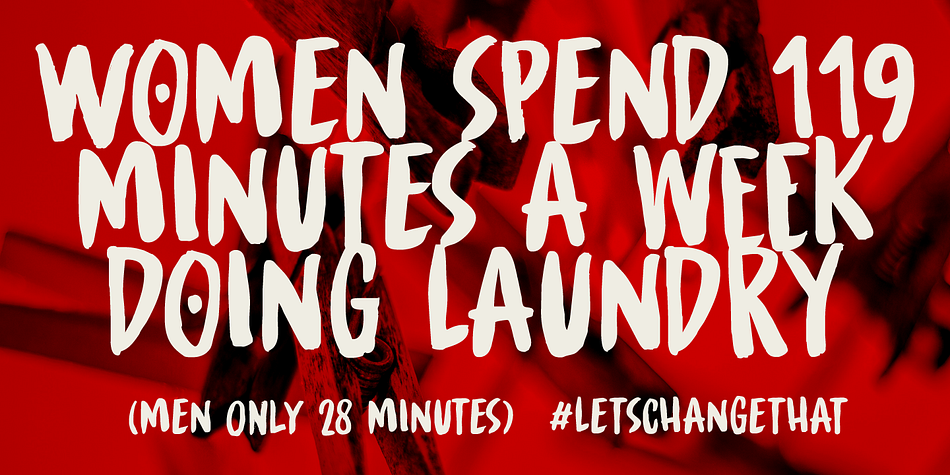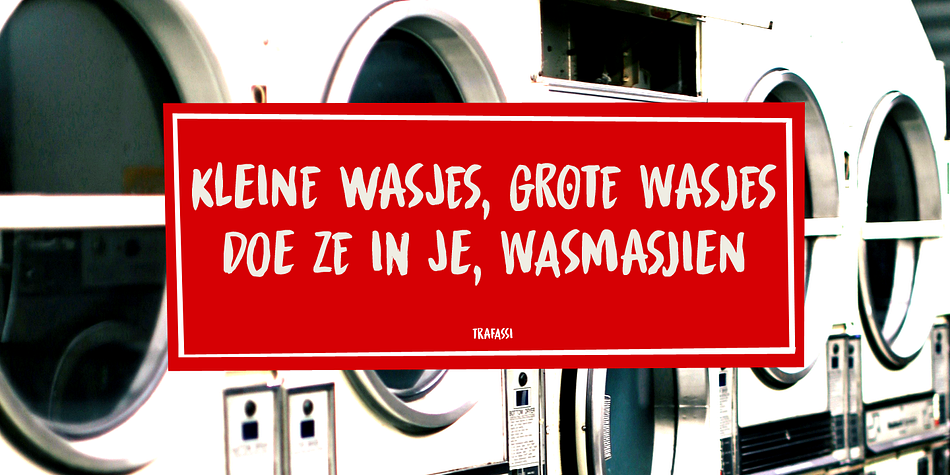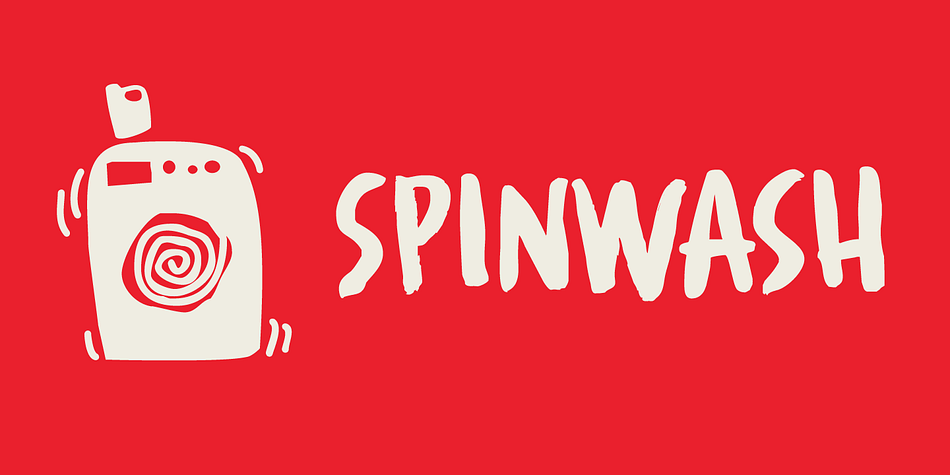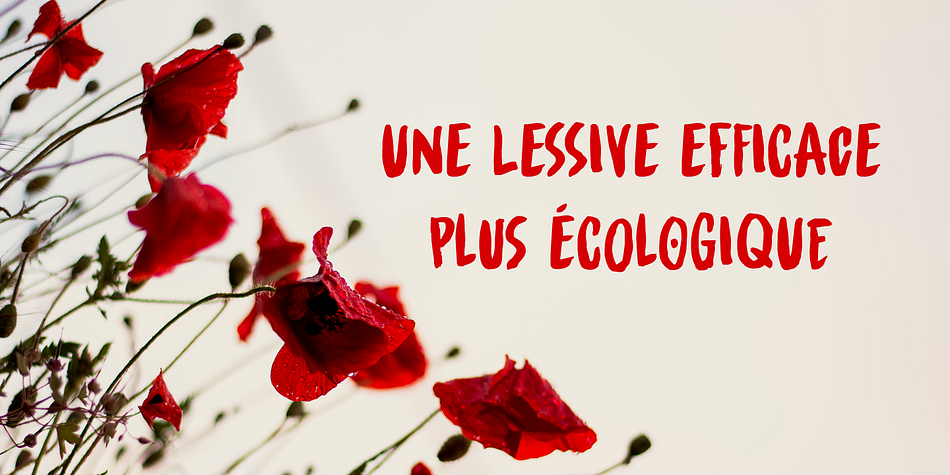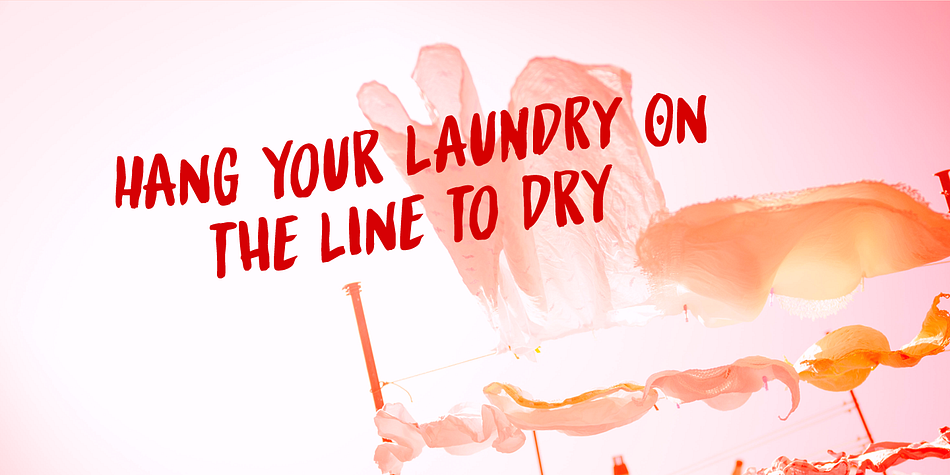
Designed by David Kerkhoff, Spinwash is a brush display and hand display font family. This typeface has two styles and was published by Hanoded.
It is amazing how much laundry I have with 3 small kids! Sometimes it feels like I spend half the week sticking laundry in the machine, or hanging it out to dry.
Spinwash is a nice brush font. It smells like ‘summer breeze’, is 100% environment friendly and will take the stains out of your designs.